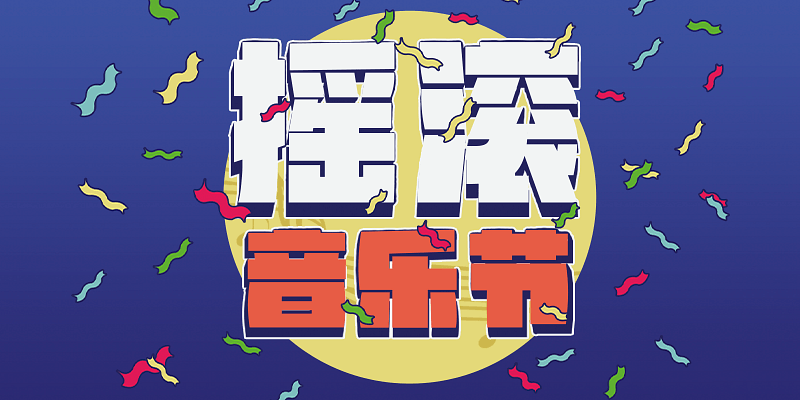
HelloFont ID Chun Hei Font Free Download is a modern and refined Chinese-style typeface that blends clean lines with traditional influences. Featuring balanced strokes and a graceful flow, this font is perfect for projects that require a professional, yet artistic feel, such as branding, signage, editorial design, and packaging.
The HelloFont ID Chun Hei Font is designed to offer both legibility and aesthetic beauty, making it ideal for both print and digital applications. Its elegant yet understated design adds sophistication to any project, making it suitable for luxury branding, cultural event materials, and high-end product design.